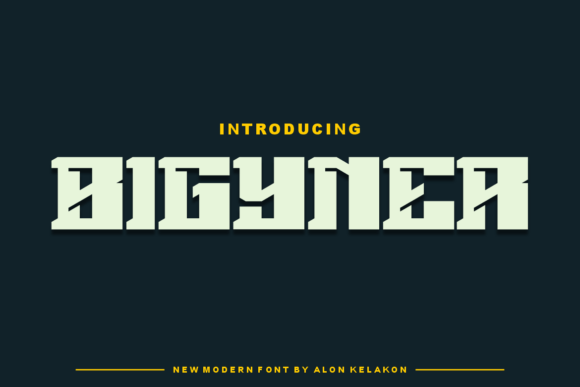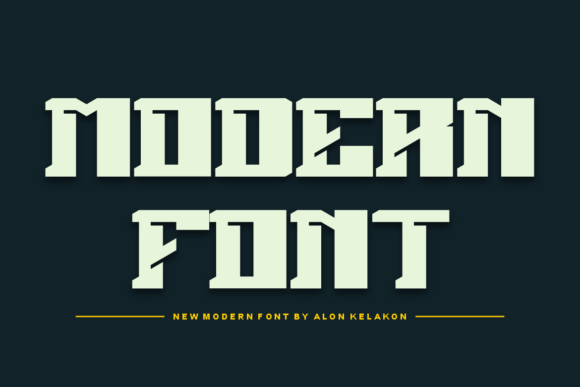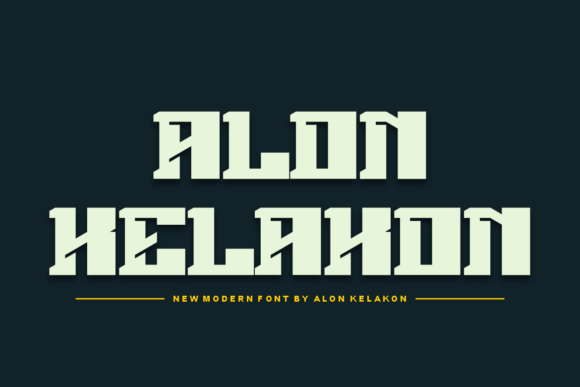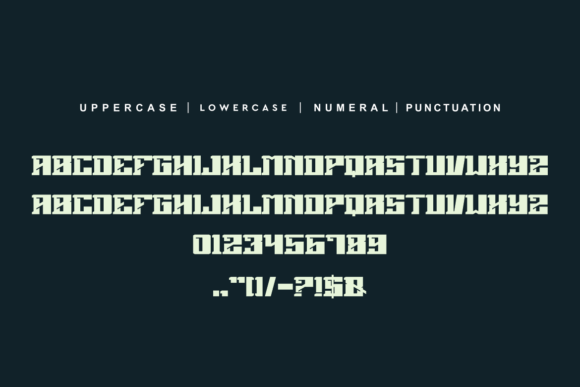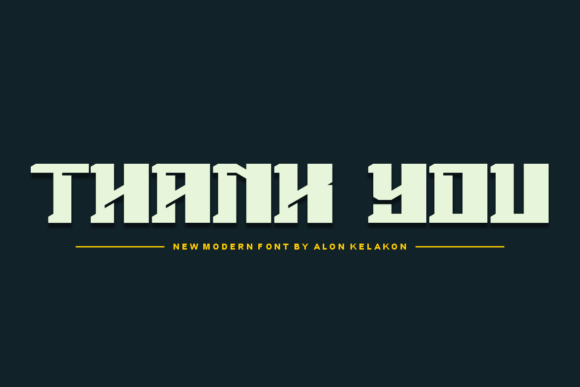
BIGYNER FONT SPECIMEN
Bigyner is a bold and unique slab serif font. It is ready to use for your design like labeling, clothing, movie screen, poster, movie title, gigs, album covers, logos, and much more.